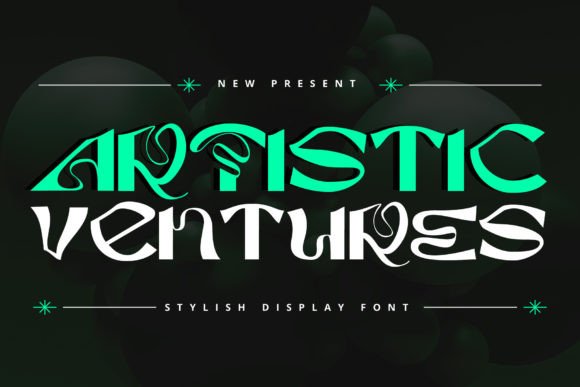
Step into the world of Artistic Ventures, the display font that's more than just letters - it's an art form. With its wavy, whimsical, and uniquely shaped characters, Artistic Ventures will transform your designs into captivating masterpieces. This font is not just visually stunning; it's also incredibly versatile, making it the perfect choice for any project. Whether you're creating a website, designing a logo, or crafting social media posts, Artistic Ventures will add an aura of elegance and sophistication to your work.
Elevate your designs to new heights with Artistic Ventures, the font that's sure to turn heads and leave a lasting impression. Its playful and distinctive characters will make your words dance off the page, captivating your audience and keeping them engaged. Artistic Ventures is the ultimate choice for those who want their creations to stand out from the crowd.
With Artistic Ventures, you'll have access to a PUA-encoded font that gives you effortless access to all the glyphs and swashes. This makes it easy to add intricate details and flourishes to your designs, giving them a truly unique and personal touch. Unleash your creativity and let Artistic Ventures take your projects to the next level.
Artistic Ventures is more than just a font; it's an invitation to let your imagination run wild. Its unique and enchanting characters will inspire you to create designs that are as captivating as they are beautiful. Whether you're a seasoned designer or just starting out, Artistic Ventures will be your trusted companion in the world of visual storytelling.